This article curates a collection of 15 groovy fonts available in Google Docs.
These fonts are more than just smooth and decorative; they inject a joyful spirit into your project, making them perfect for casual document titles and headlines.
For your convenience, each font is presented with a preview image, allowing you to instantly visualize its style and personality before making your selection.
Groovy Fonts on Google Docs
1. Kumar One Outline
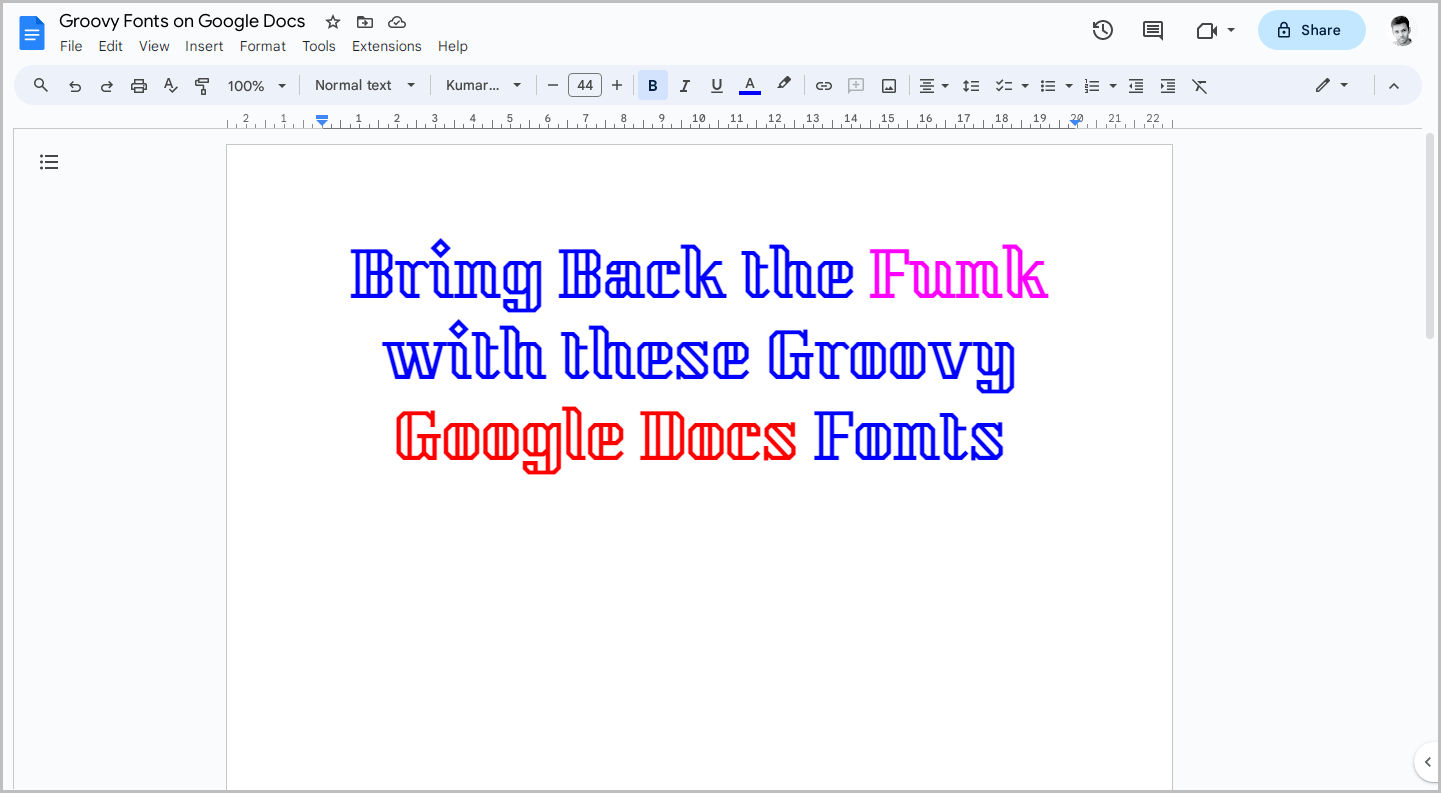
2. Monofett
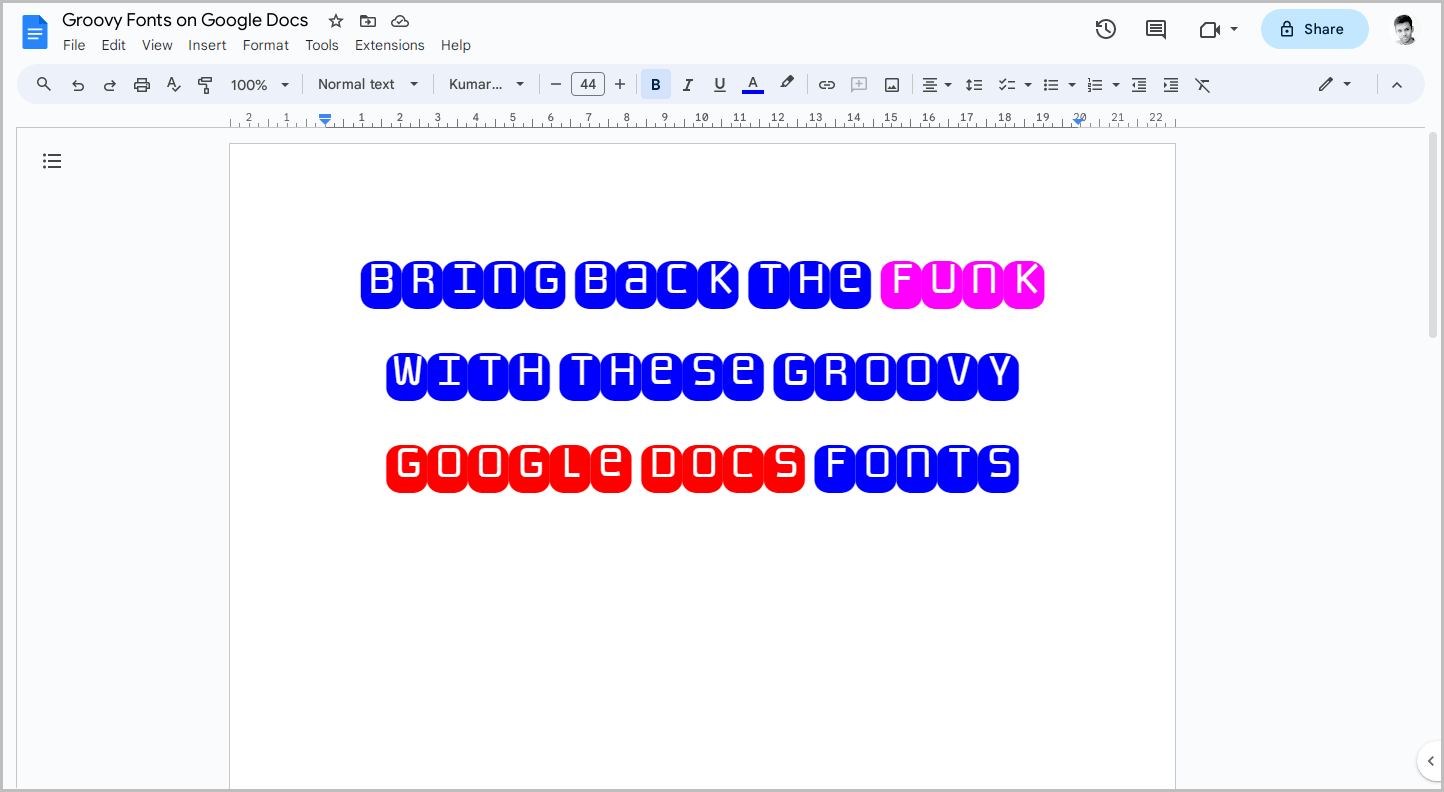
3. Turret Road
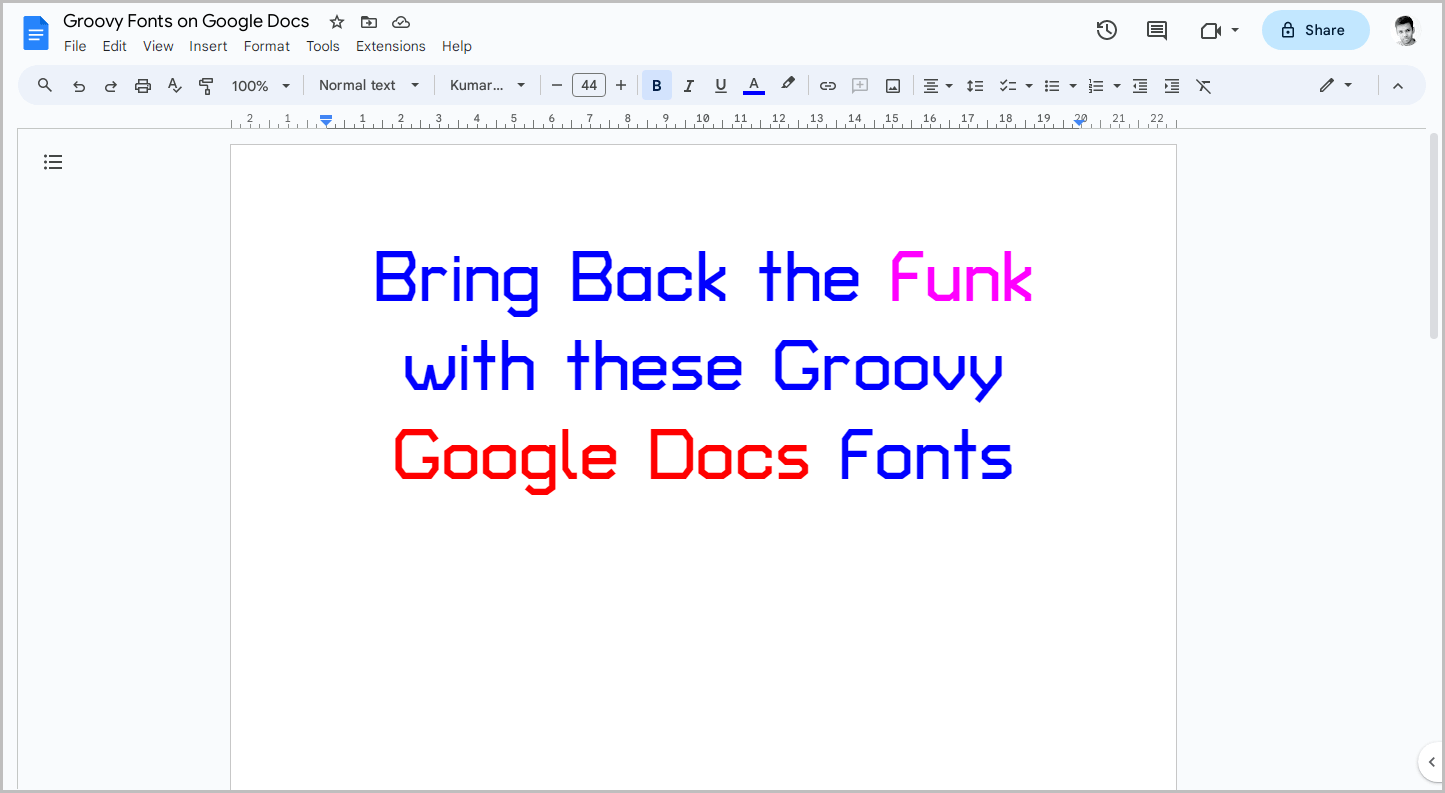
4. Bungee Shade
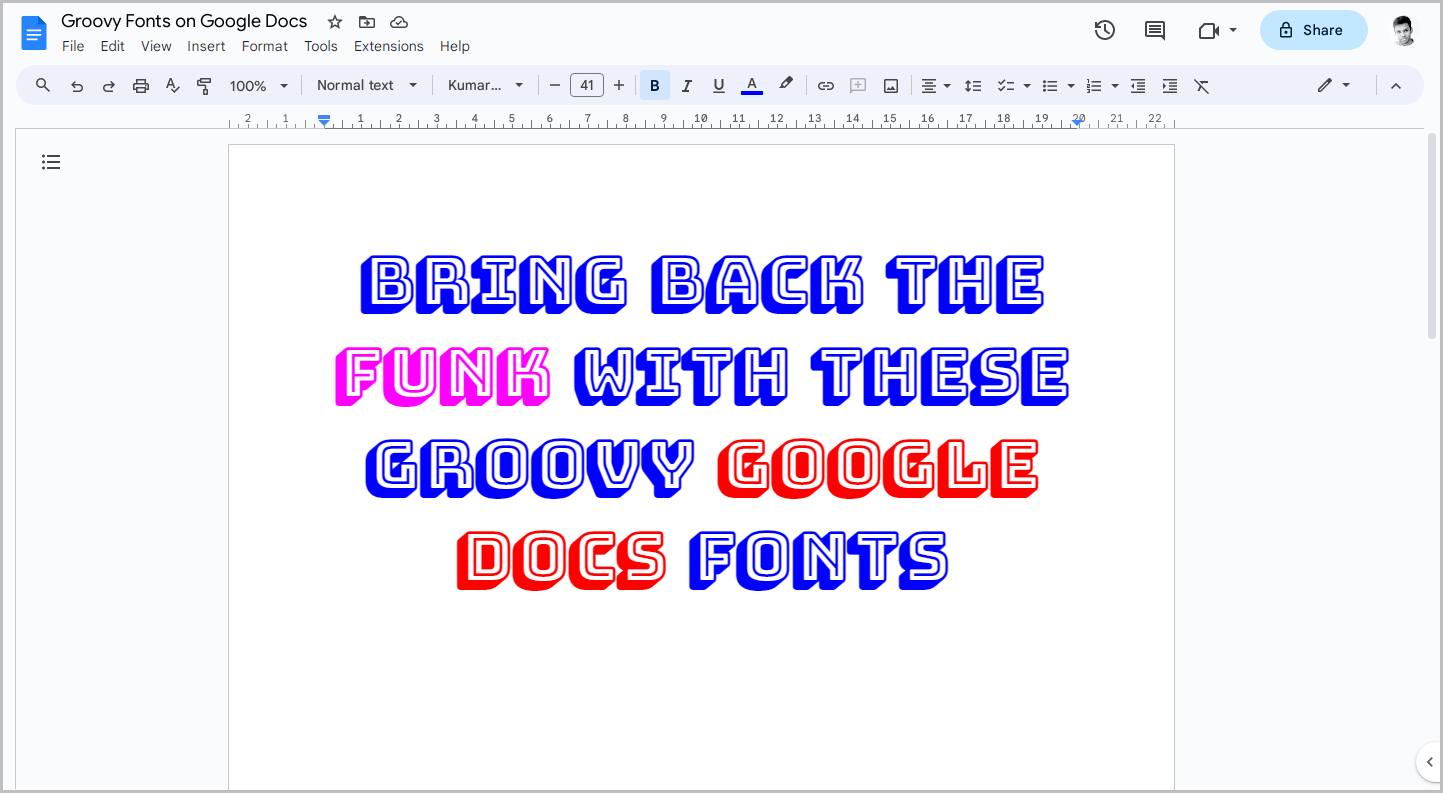
5. Megrim
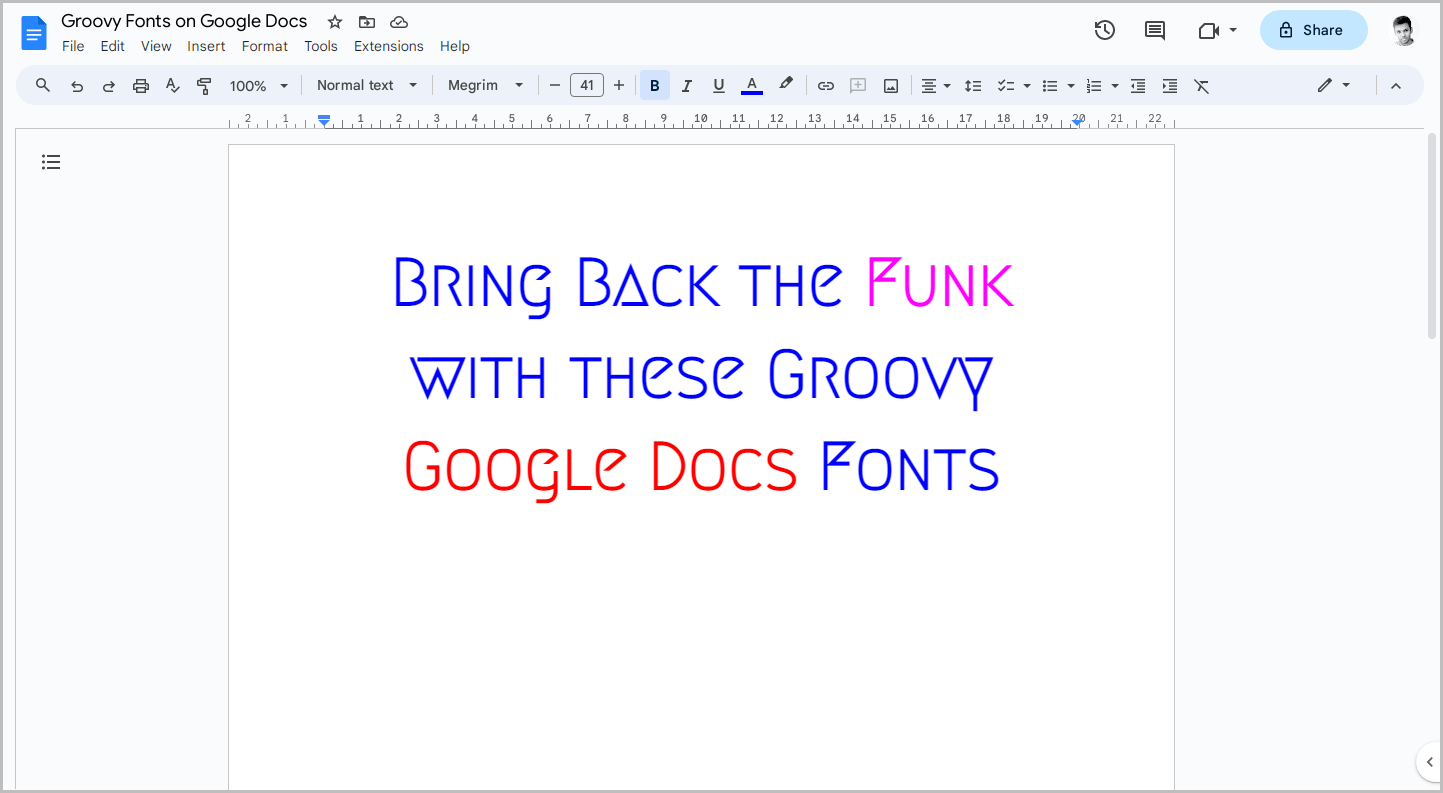
6. Diplomata
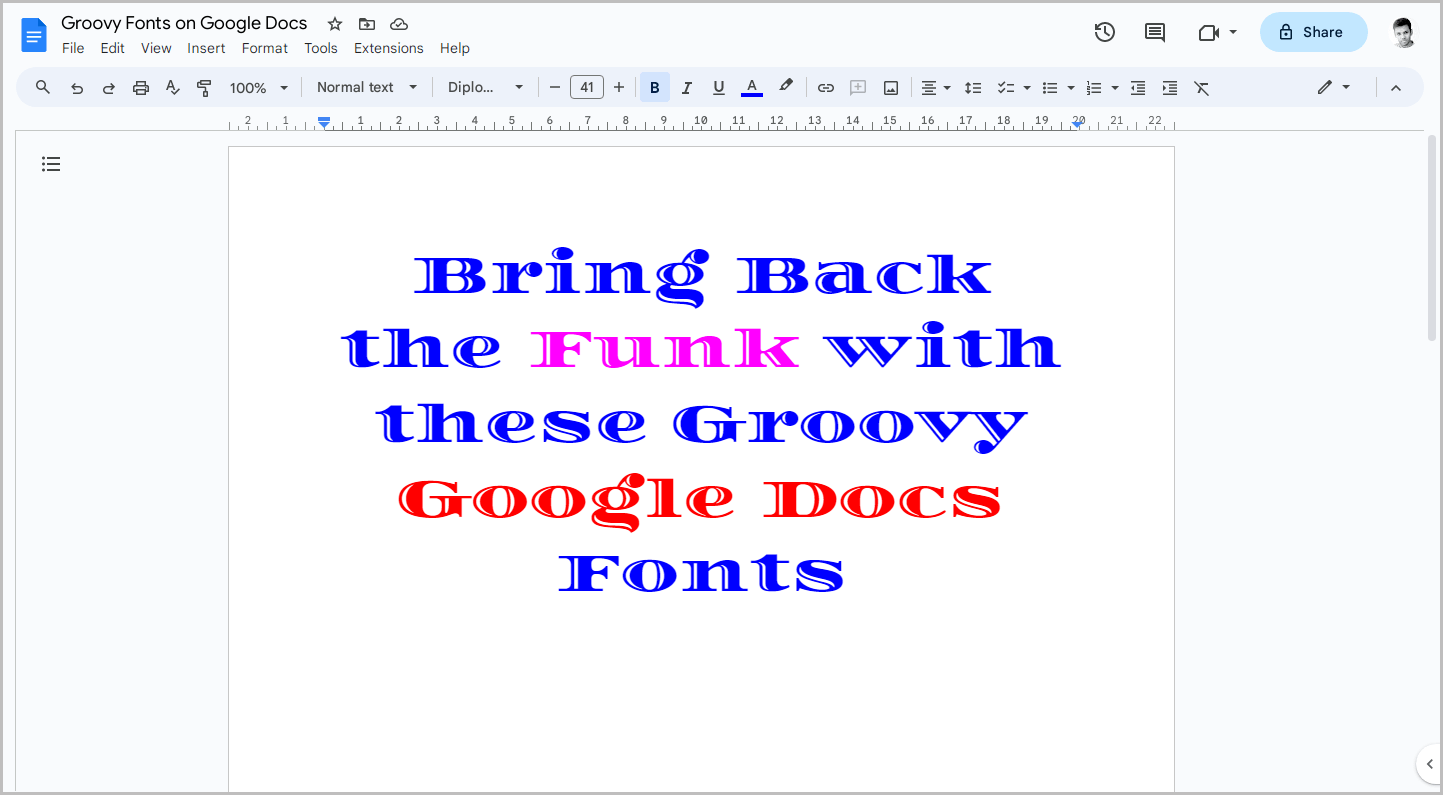
7. Bungee Inline
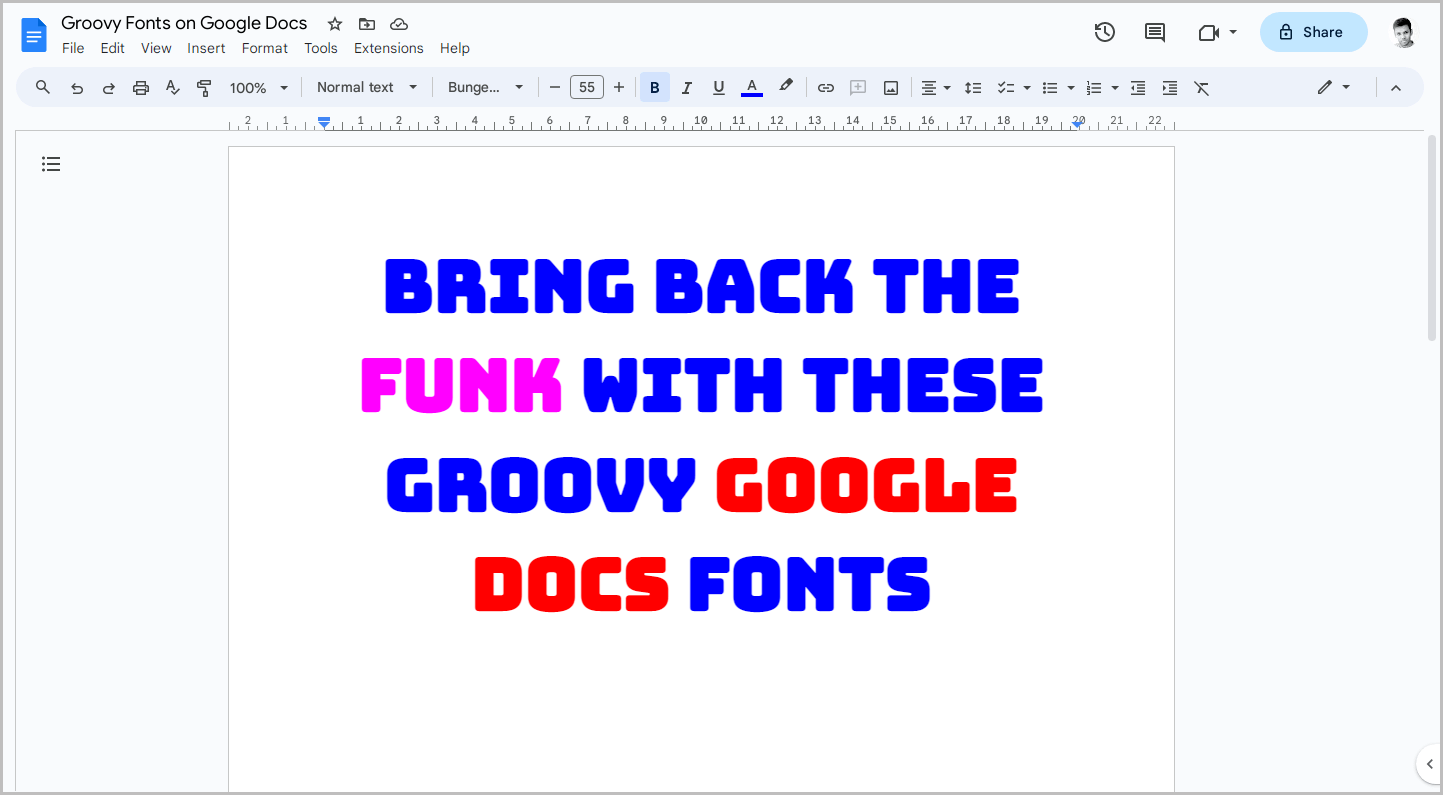
8. Miltonian
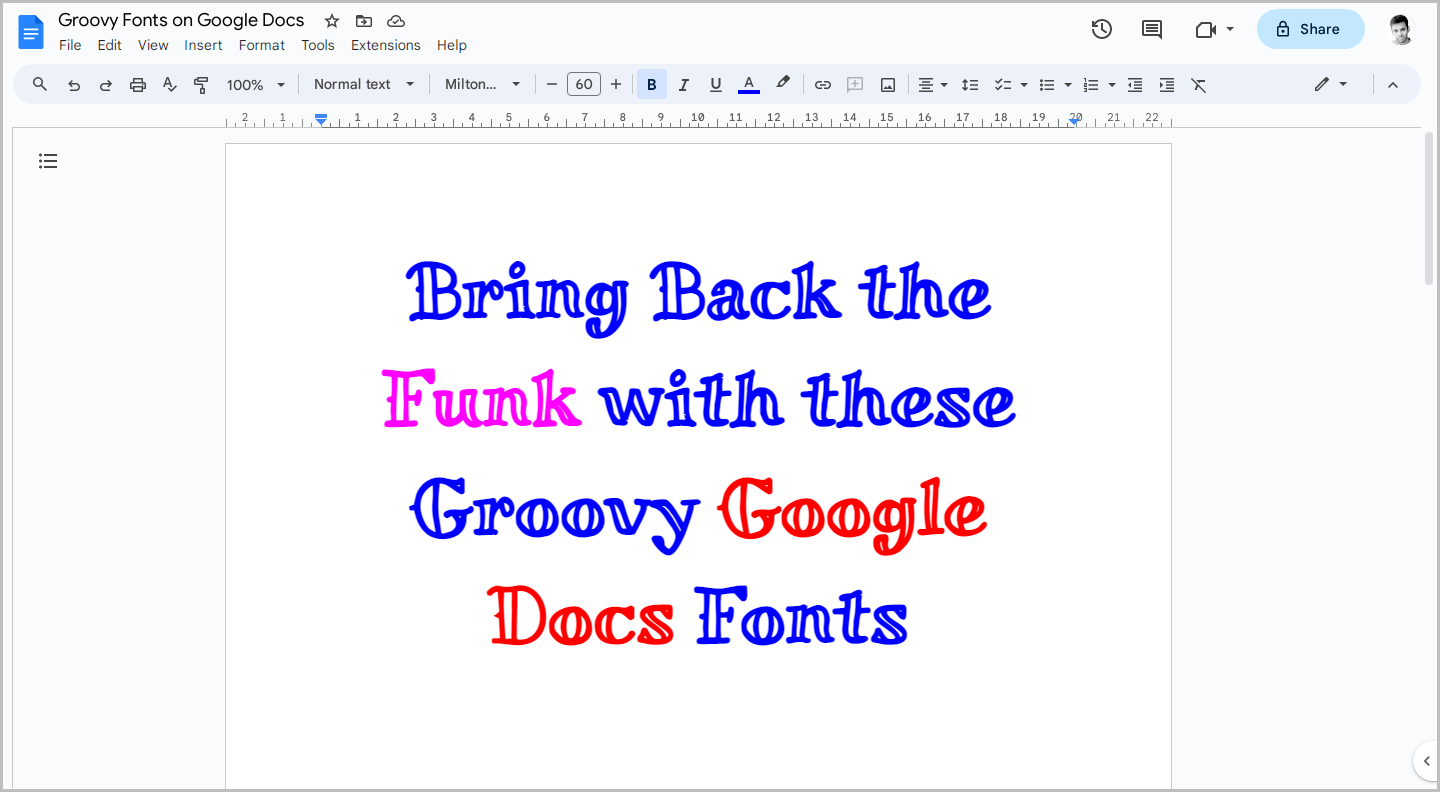
9. Permanent Marker
10. Major Mono Display
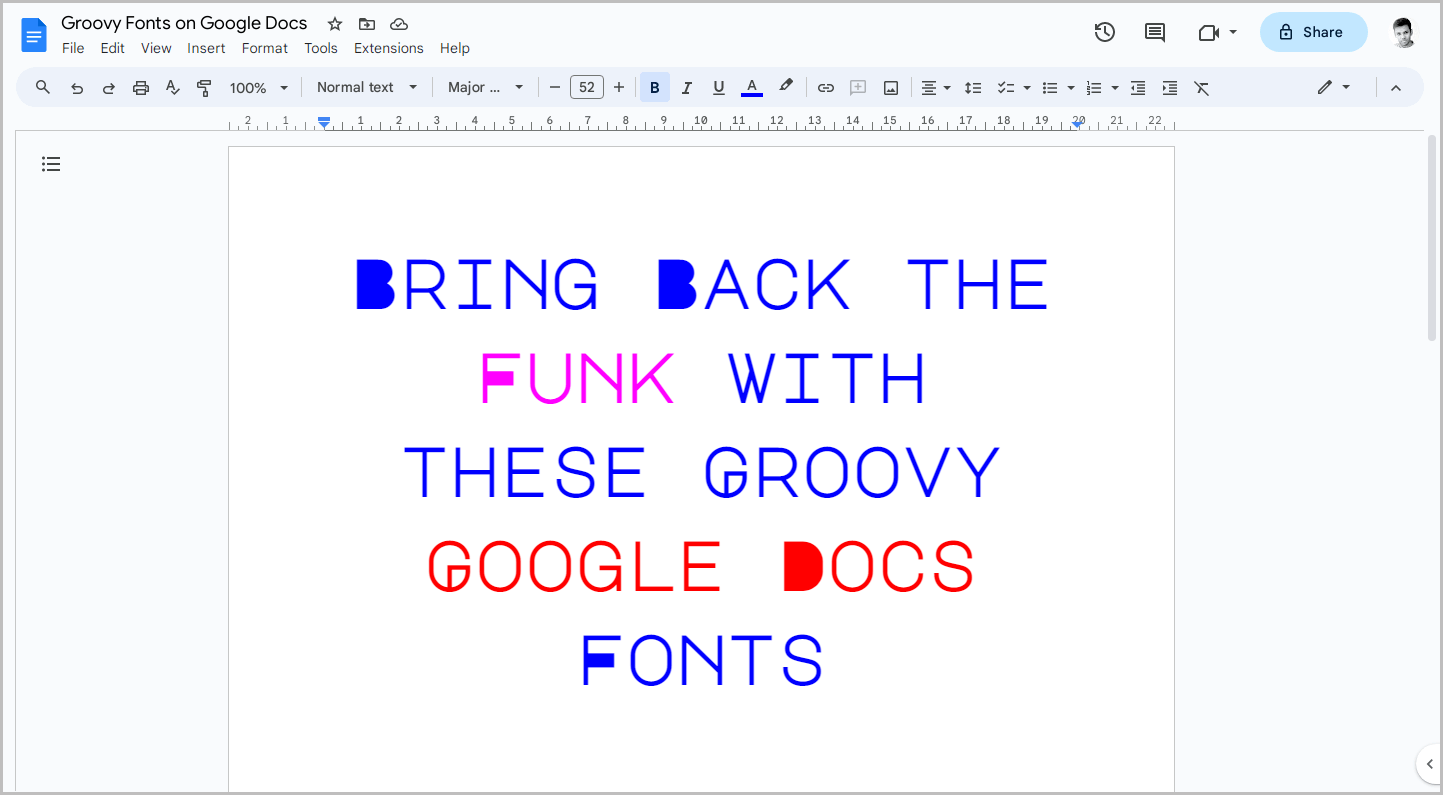
11. Ribeye Marrow
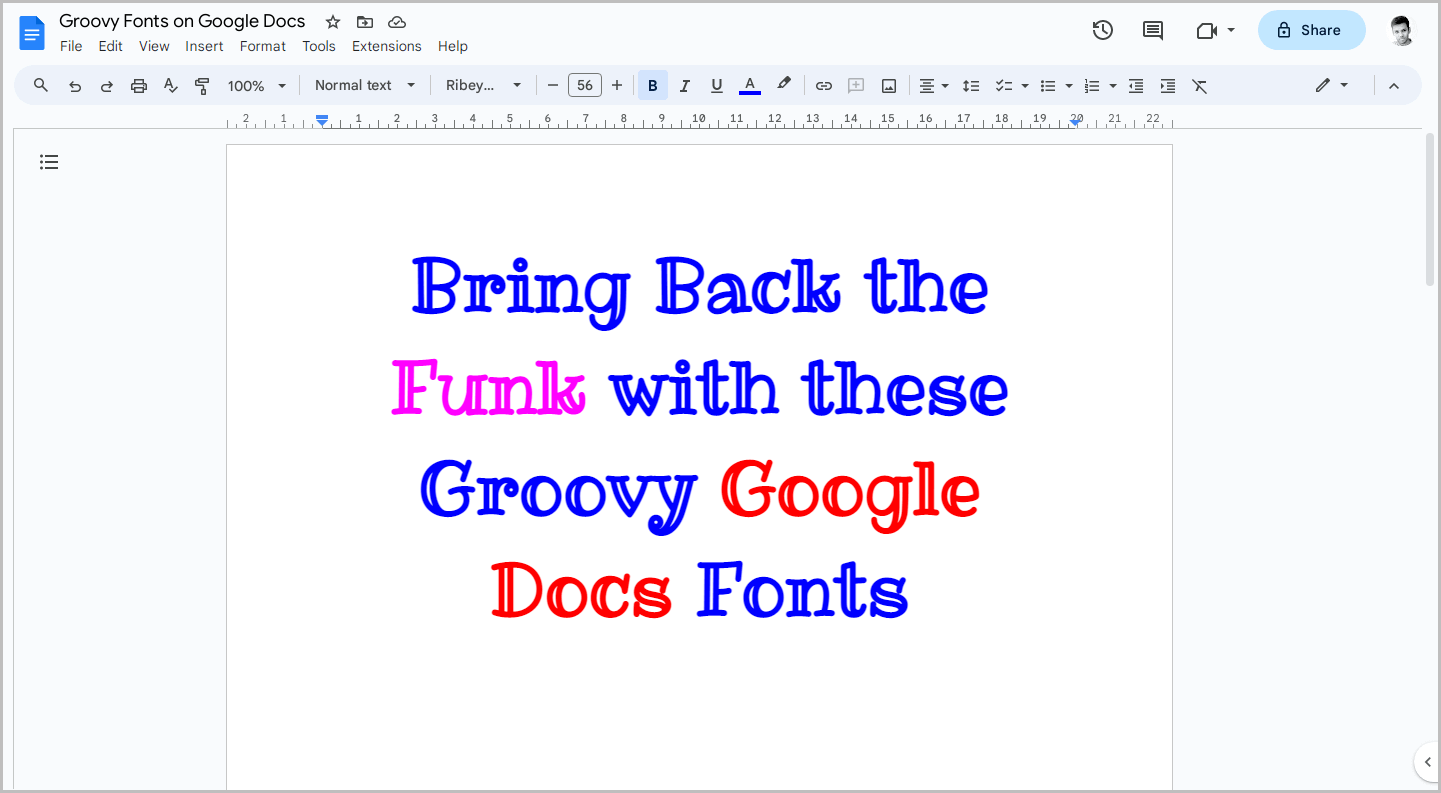
12. Knewave
13. Geostar
14. Monoton
15. Ranchers
FAQs
What are “groovy fonts”?
Groovy fonts are distinct from general fonts. They have a smooth, decorative, and playful style. Typically, groovy fonts are used in casual documents.
What are some good uses for groovy fonts in Google Docs?
Groovy fonts can be used for casual documents. However, it is recommended to use Groovy fonts only for document titles and headlines.
Which are the best Groovy fonts available on Google Docs?
These are the best groovy fonts available on Google Docs:
- Kumar One Outline
- Monofett
- Turret Road
- Bungee Shade
- Megrim
Conclusion
- Groovy fonts inject a joyful spirit into your project.
- They are perfect for casual document titles and headlines.
- Each font is presented with a preview image for easy selection.
- Kumar One Outline, Monofett, Turret Road, Bungee Shade, and Megrim are among the best groovy fonts available on Google Docs.